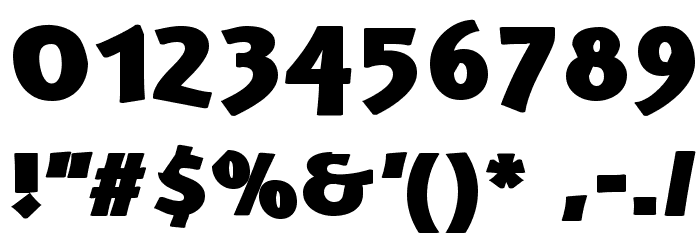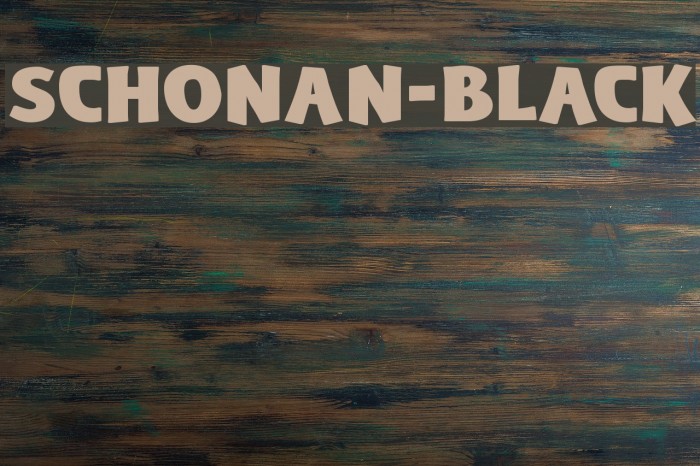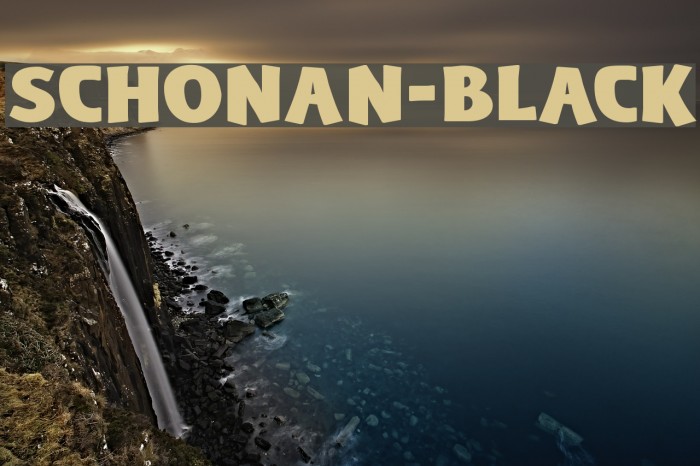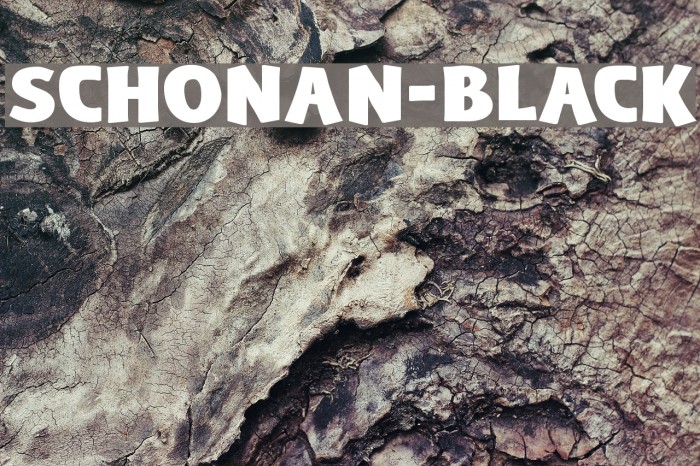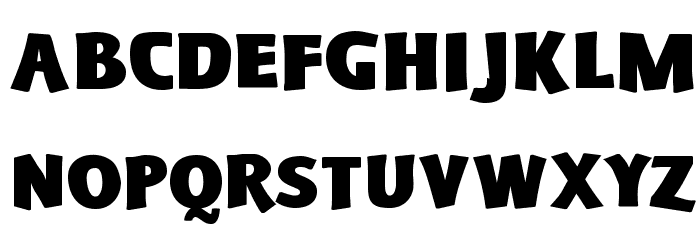
Schonan-Black Font
This font features bold, thick strokes with a playful and dynamic appearance. The characters have a slightly irregular shape, giving them a lively and energetic feel. The uppercase letters are robust and commanding, while the lowercase letters maintain a consistent style. Numbers are equally bold, ensuring visibility and impact. Special characters are designed with the same boldness, making them stand out effectively. The overall design is suitable for attention-grabbing headlines and creative projects that require a strong visual presence.
A bold, playful font with thick strokes and dynamic character shapes.
• Proposed Projects: Ideal for posters, logos, children's books, and any project needing a bold, fun typeface.
• Category: Decorative/Display
• Overall Style: Playful, Energetic
• Use Case: Headlines, Logos, Posters